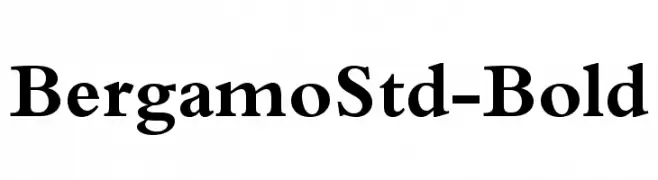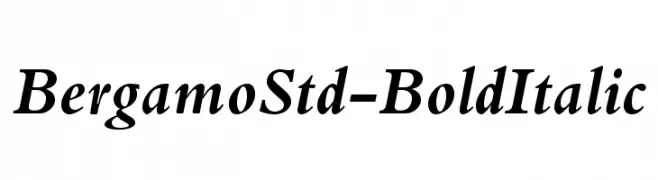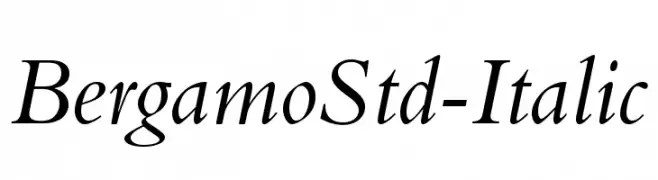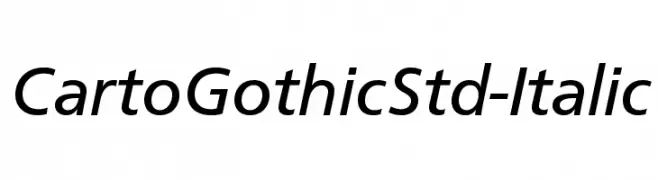
A bold, classic serif font with strong, elegant strokes.
A classic serif font with elegant, balanced letterforms and medium contrast.
A bold, italic serif font with a classic and elegant style.
An elegant serif italic font with smooth, flowing curves and a classic appearance.
A modern, italic sans-serif font with clean lines and a dynamic appearance.
A bold, italicized sans-serif font with a modern and dynamic style.
A bold, modern sans-serif font with clean lines and strong legibility.